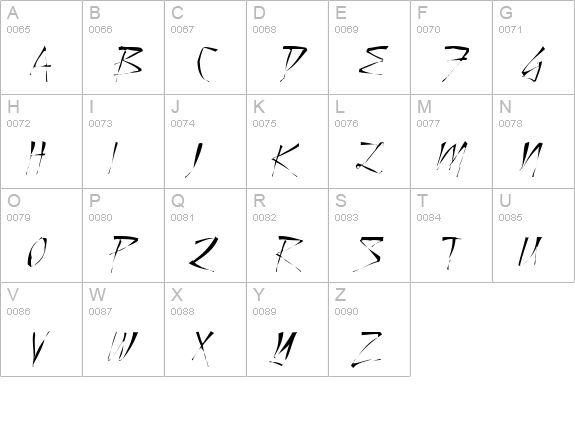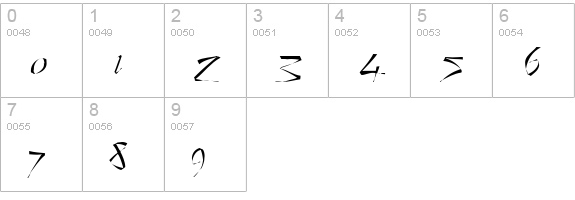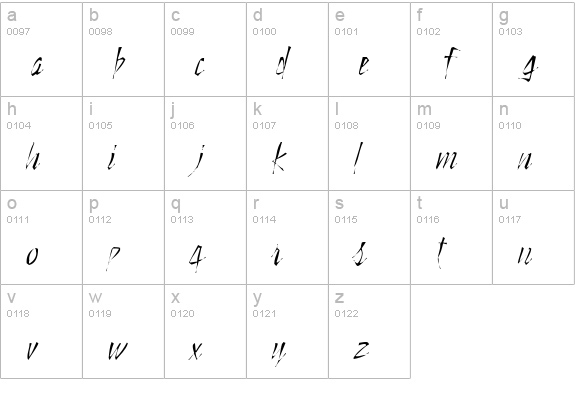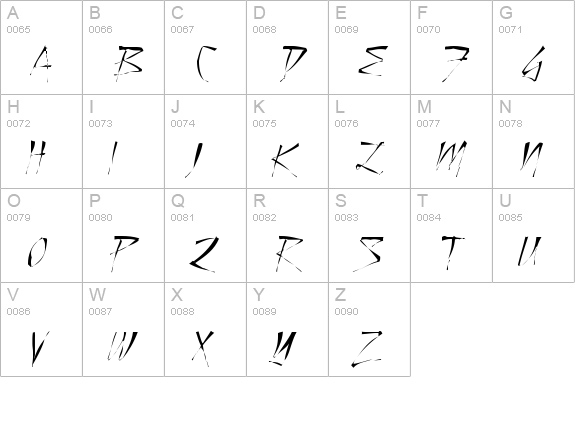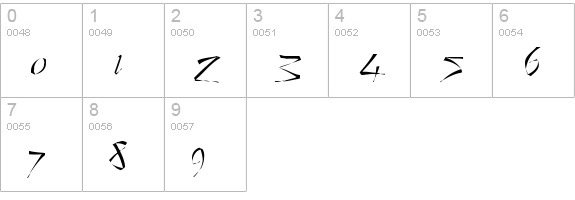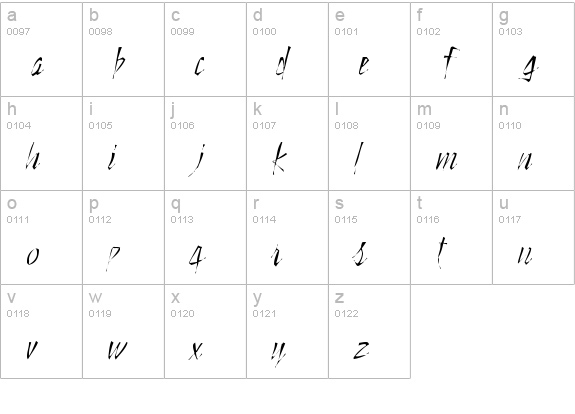
Still Time Gaunt Font Details
Still Time Gaunt font is a beautifully crafted typeface that exudes elegance and sophistication. With its delicate strokes and slender letterforms, this font brings a sense of timeless grace to any design project. Perfect for adding a touch of refinement to invitations, branding materials, and more, Still Time Gaunt font is a versatile choice for those seeking a graceful and sophisticated look. The best part? Still Time Gaunt font is available for free download at FontsMarket.com. This means you can easily access this stunning font and elevate your designs without any cost. Don't miss out on the opportunity to enhance your projects with the timeless beauty of Still Time Gaunt font - download it now and let your creativity shine!